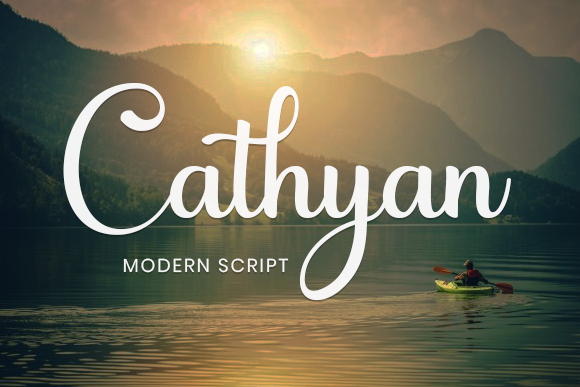
Prepare your designs to be the center of attention with Cathyan, an awe-inspiring script font that exudes elegance and friendliness. Its classic style, infused with a touch of modernity, will make your designs shine. Created by utopiabrand19, Cathyan is the font of choice for individuals seeking to make a lasting impact.
Step into a world of captivating designs and let Cathyan unveil the true potential of your creativity. Its delicate strokes, coupled with a touch of whimsy, will transform your words into captivating works of art. Create posters that command attention, and leave a lasting impression on your audience.
Cathyan is not just a font; it's an experience. The perfect fusion of classic and contemporary elements makes Cathyan suitable for a wide range of projects. Whether you're designing posters for a local event or crafting social media graphics for your business, Cathyan will elevate your designs to new heights.
Let your imagination run wild and explore the endless possibilities that Cathyan has to offer. Its beauty lies in its versatility, seamlessly adapting to any design style. Experiment with different colors, graphics, and backgrounds to create truly unique and eye-catching designs.
With Cathyan, your designs will be more than just words on a page. They will be unforgettable experiences that captivate and engage your audience. Unleash the power of Cathyan today and embark on a creative journey like never before.